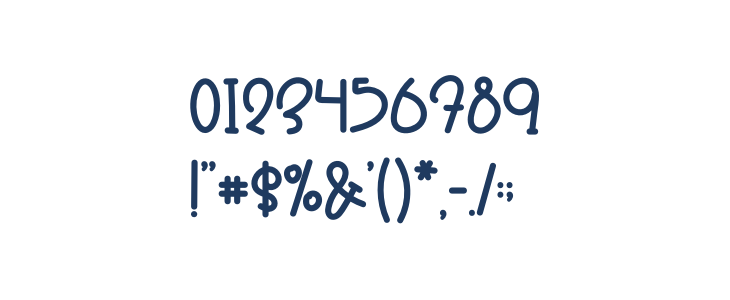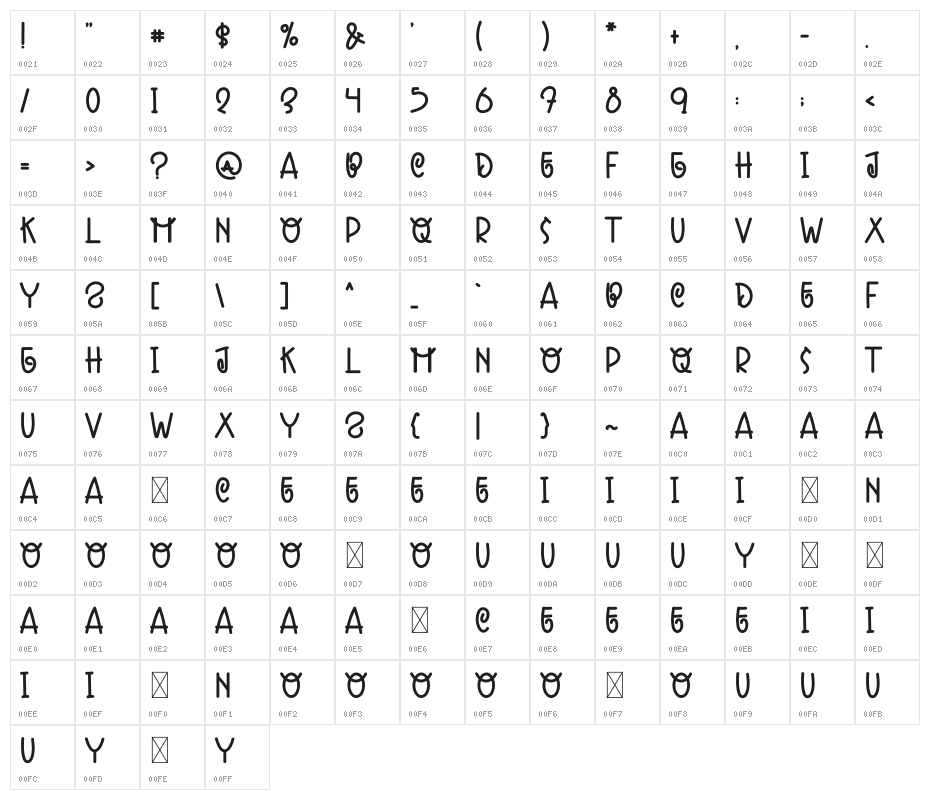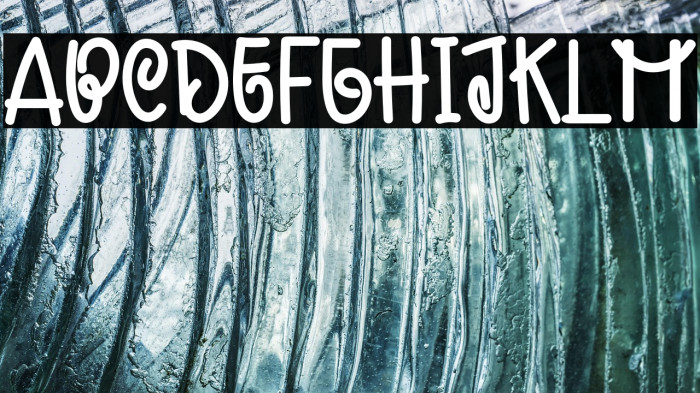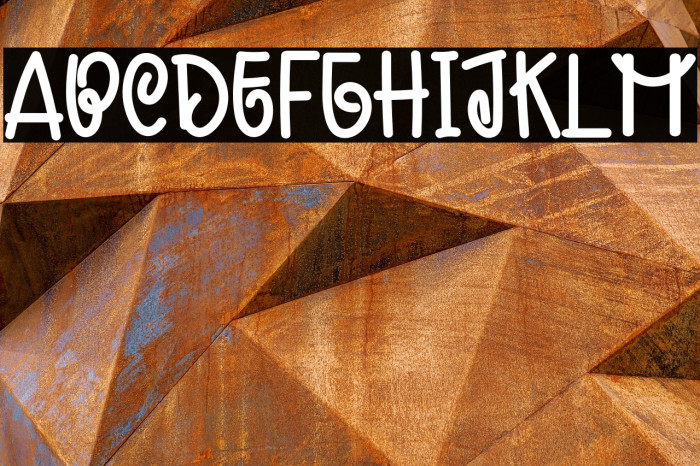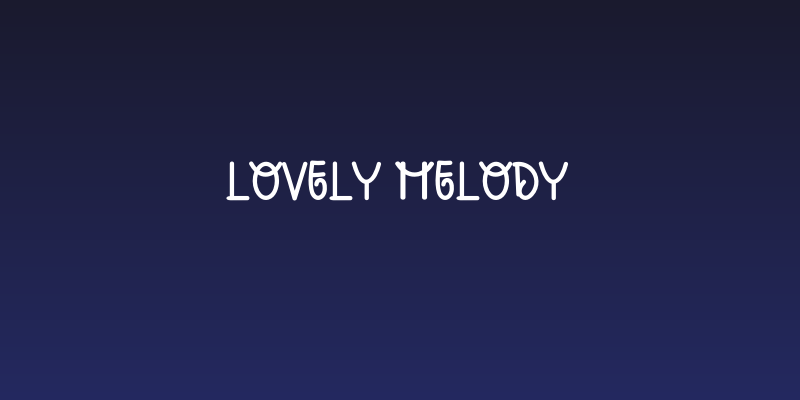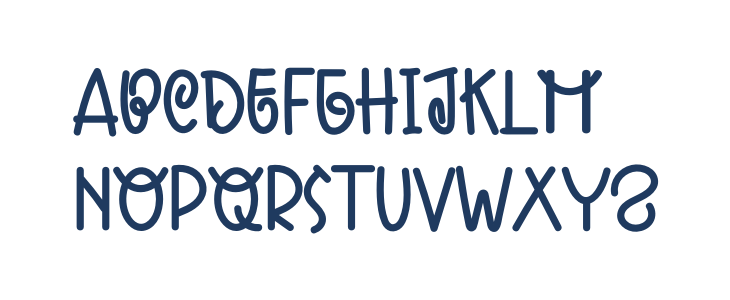
Lovely Melody Font
Lovely Melody Description
This playful and whimsical font features a hand-drawn style with a unique, artistic flair. The characters are bold and rounded, with a consistent stroke width that gives it a cohesive look. The uppercase letters have a quirky, almost cartoonish appearance, with some letters incorporating loops and swirls that add to its charm. The lowercase letters maintain the same playful style, ensuring readability while still being visually interesting. Numbers and special characters are designed to match the overall aesthetic, making this font versatile for various creative projects. Its informal and friendly appearance makes it ideal for designs that aim to convey a sense of fun and creativity.
| Proposed Projects | Ideal for children's books, playful branding, greeting cards, and creative posters. |